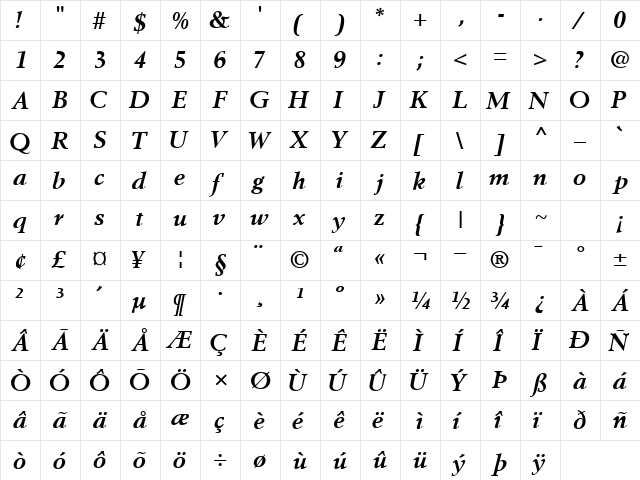
CortexSSK Bold Italic Font Preview
Design Context for CortexSSK Typeface
CortexSSK takes a measured approach to typography — its balanced proportions and neutral character make it a reliable workhorse for both digital and print work. Its italic angle brings a sense of urgency and motion to the letterforms. The heavy weight commands attention and anchors typographic hierarchies.